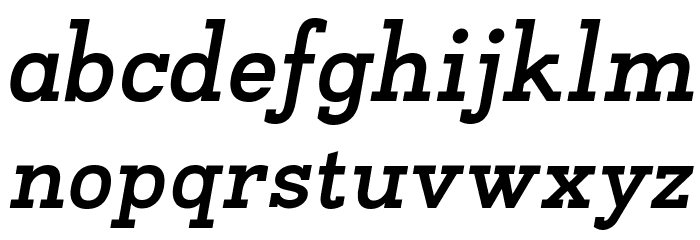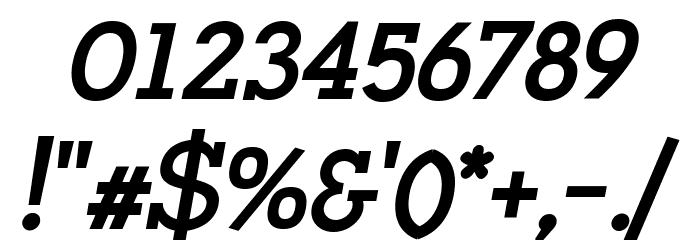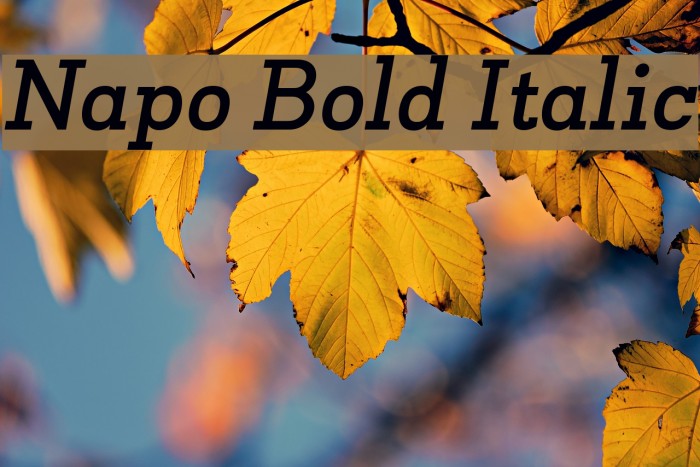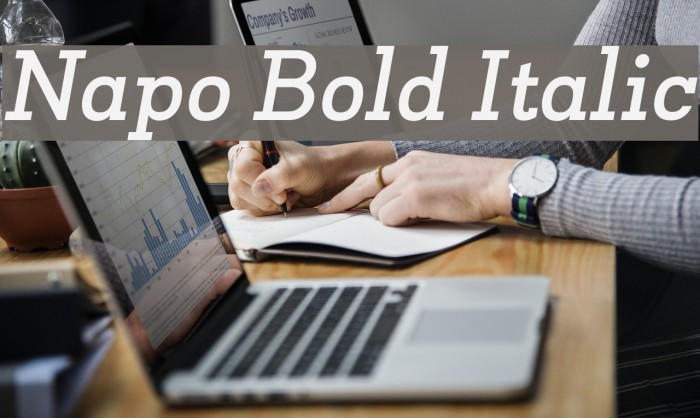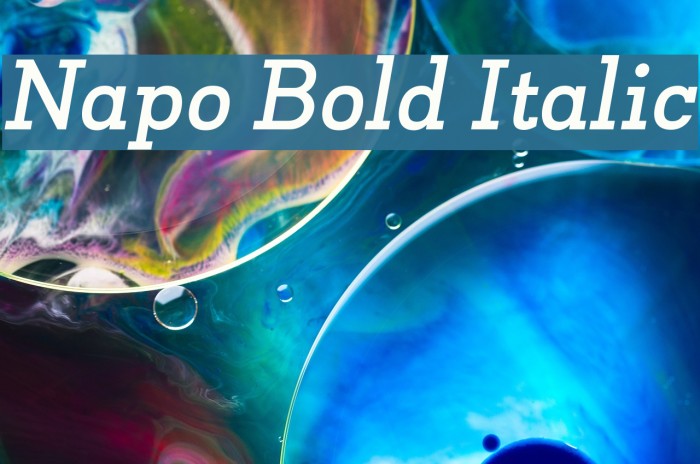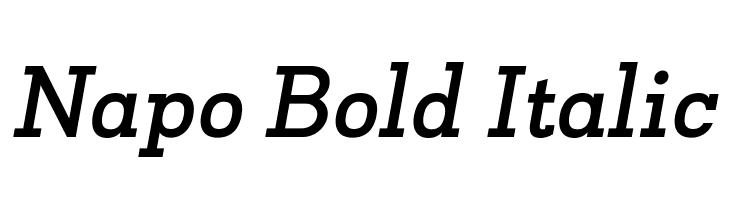
Napo Bold Italic Font
This font exhibits a bold and italicized style, combining strength with elegance. The characters are slightly slanted, giving a dynamic and forward-moving appearance. The strokes are thick and consistent, providing a robust and confident look. The serifs are subtle yet present, adding a touch of classic sophistication. The numerals and special characters maintain the same boldness and slant, ensuring uniformity across all glyphs. This font is well-suited for making a strong visual impact while retaining readability.
A bold, italicized serif font with a dynamic and elegant style.
- Proposed Projects: Ideal for branding, headlines, posters, and any design requiring a bold statement.